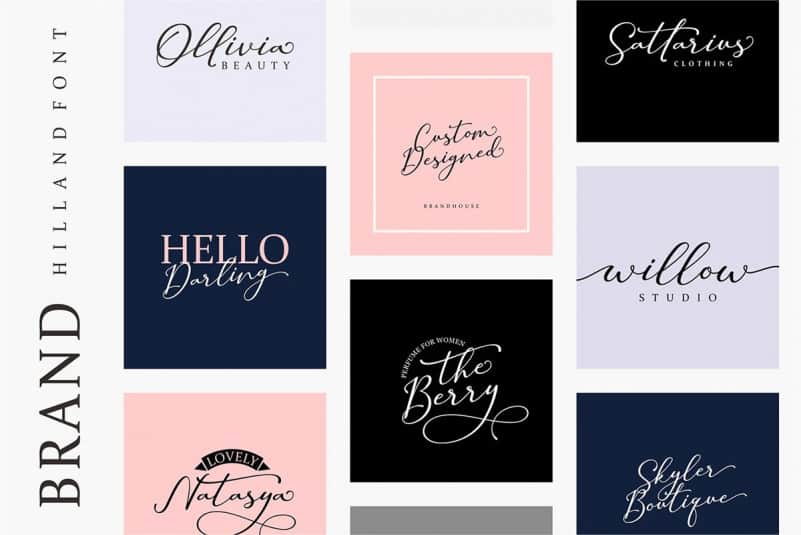
Hilland Script Font is designed and shared by Beautypes Studio. It’s a Handwritten font with a strong texture character. It’s an elegant signature typeface. It has a dancing baseline which will give your design a fresh and modern feel. It’s perfect for greeting cards, branding materials, christmas, business cards, quotes, posters, and every other design which needs to look upscale and chic!